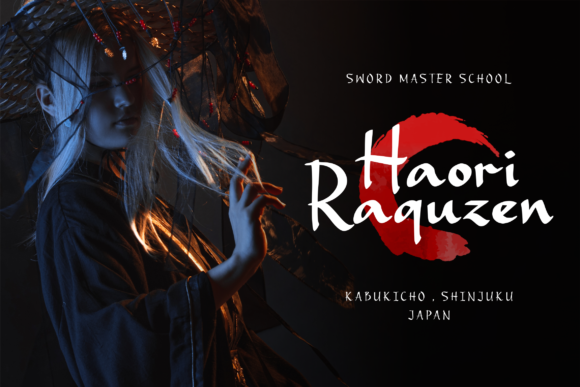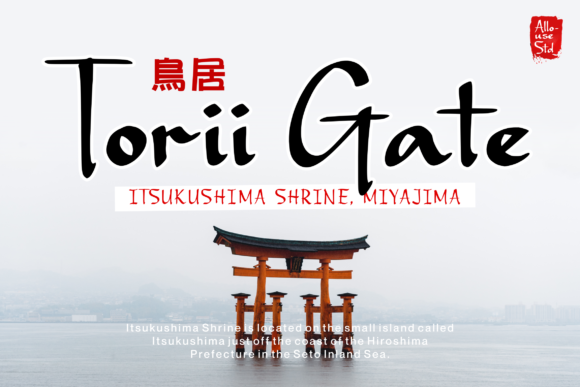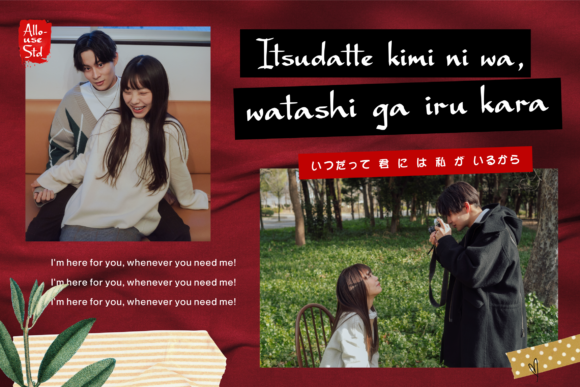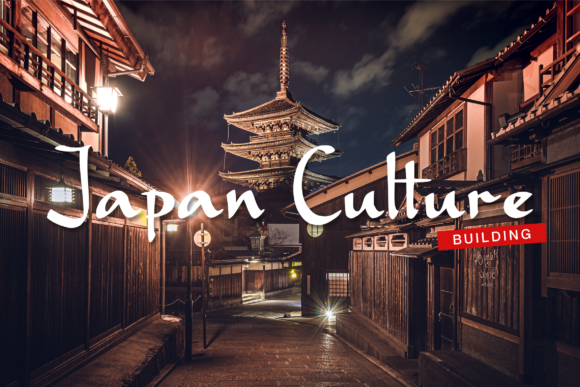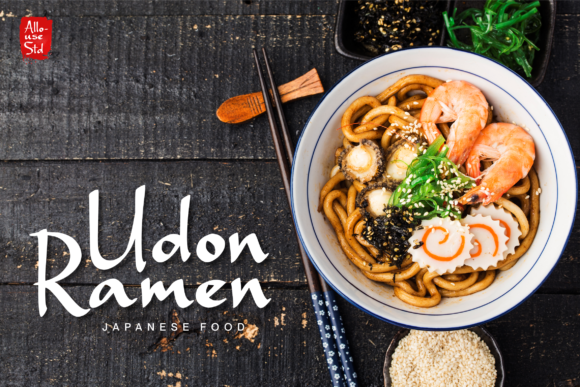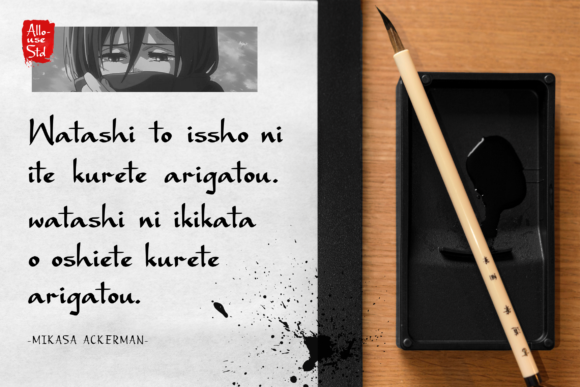
Gaze Nozarashi Font: Elevate Your Designs with a Touch of Japanese Elegance
In the world of typography, fonts play a crucial role in conveying messages, evoking emotions, and setting the tone for a brand or design. For designers and crafters looking to add a unique touch to their projects, the Gaze Nozarashi font is an excellent choice. This Japanese-styled display font has been gaining popularity for its elegant and versatile design, making it perfect for various applications, from product packaging to social media graphics.
What is Gaze Nozarashi Font?
Gaze Nozarashi is a carefully crafted display font inspired by traditional Japanese typography. Its name “Nozarashi” translates to “exposed to the weather” or “weathered,” which reflects the font’s rustic yet refined aesthetic. The font’s design combines the simplicity and clarity of Japanese characters with a touch of modernity, making it an excellent choice for designers seeking a distinctive look.
Key Features of Gaze Nozarashi Font
- Unique Japanese-inspired design: Gaze Nozarashi boasts a distinctive style that sets it apart from other display fonts. Its Japanese roots add a touch of cultural elegance to any design.
- High legibility: Despite its stylized design, Gaze Nozarashi maintains high legibility, making it suitable for use in various contexts, from titles and headings to short paragraphs.
- Versatile: This font is adaptable to different design styles, from minimalist to elaborate, and can be used in both digital and print formats.
- Multilingual support: Gaze Nozarashi supports multiple languages, including Japanese, English, and other Latin-based languages, making it a great choice for global brands and multilingual projects.
Use Cases for Gaze Nozarashi Font
Gaze Nozarashi’s versatility makes it suitable for a wide range of design projects. Here are some popular use cases:
- Product packaging: Add a touch of Japanese elegance to your product packaging and make it stand out on store shelves.
- Branding projects: Use Gaze Nozarashi to create unique and memorable brand identities that reflect your company’s values and personality.
- Magazine covers: Create eye-catching magazine covers that showcase the font’s stylish and sophisticated design.
- Social media graphics: Elevate your social media presence with Gaze Nozarashi’s distinctive style, perfect for creating engaging posts, stories, and ads.
- Wedding designs: Add a touch of romance and whimsy to your wedding designs, such as invitations, programs, and decorations.
Tips for Using Gaze Nozarashi Font
To get the most out of Gaze Nozarashi, here are some tips to keep in mind:
- Pair with contrasting fonts: Combine Gaze Nozarashi with simpler fonts to create visual interest and hierarchy in your designs.
- Experiment with colors: Take advantage of the font’s versatility by trying out different color schemes and textures.
- Pay attention to spacing: Adjust the font’s spacing and kerning to ensure optimal legibility and aesthetics.
Gaze Nozarashi font is an exceptional choice for designers and crafters looking to add a touch of Japanese elegance to their projects. Its unique design, high legibility, and versatility make it suitable for a wide range of applications, from product packaging to social media graphics. By incorporating Gaze Nozarashi into your designs, you’ll be able to create visually stunning and memorable projects that stand out from the crowd.
Whether you’re a seasoned designer or a crafty DIY enthusiast, Gaze Nozarashi font is definitely worth exploring. So why not give it a try and experience the beauty of Japanese typography in your designs?